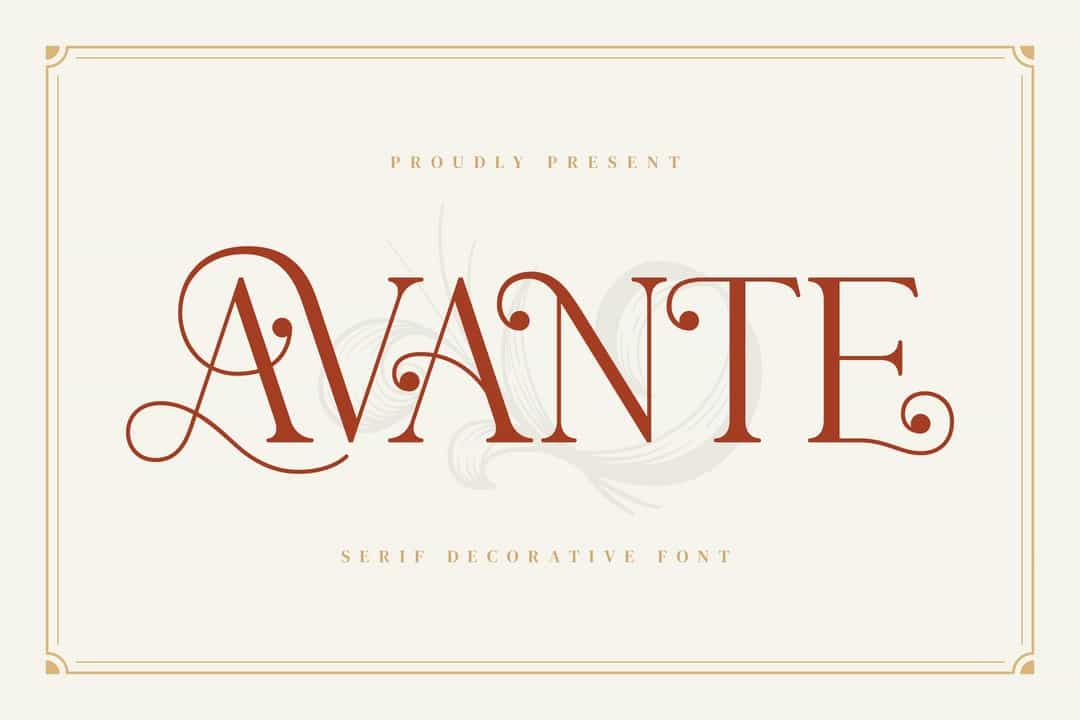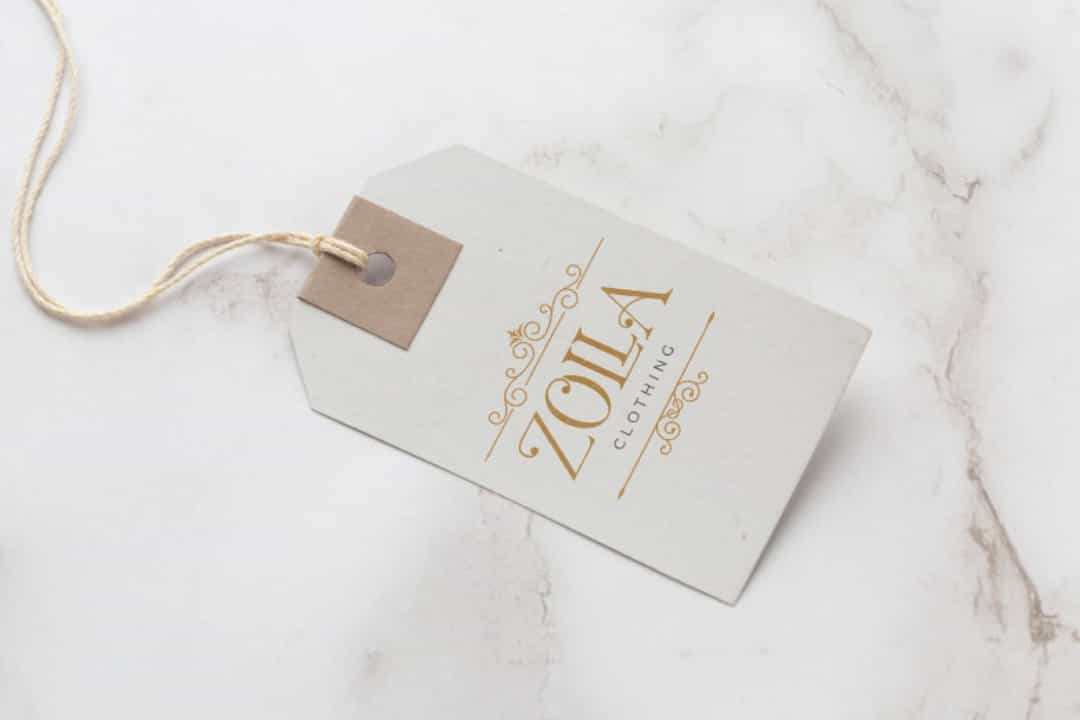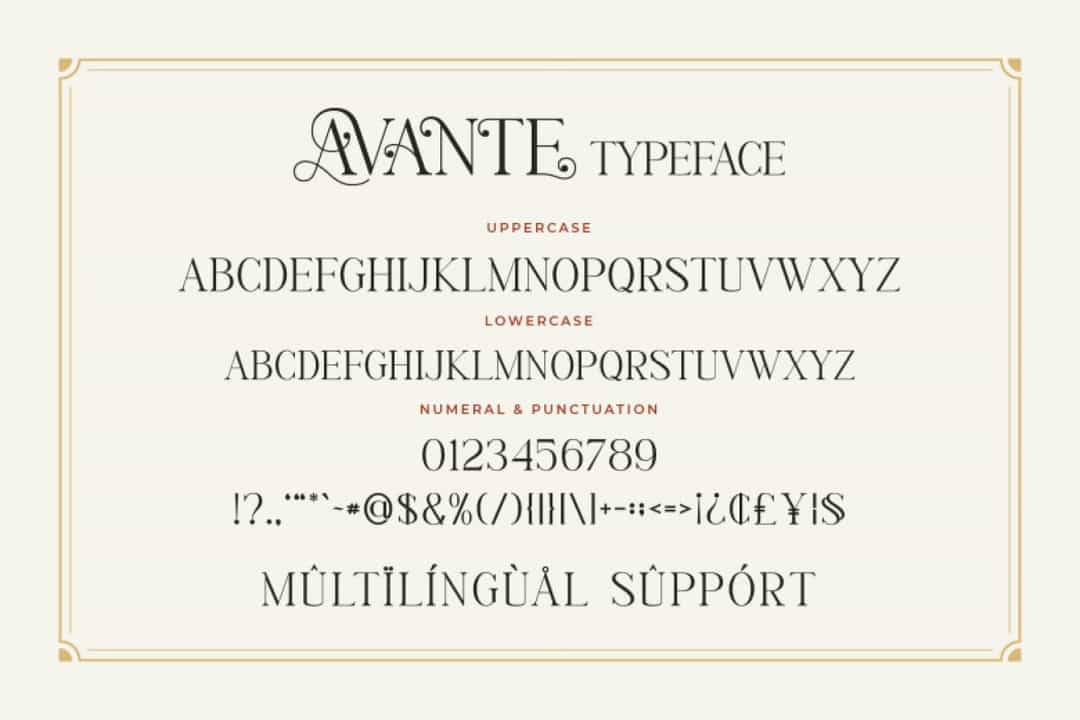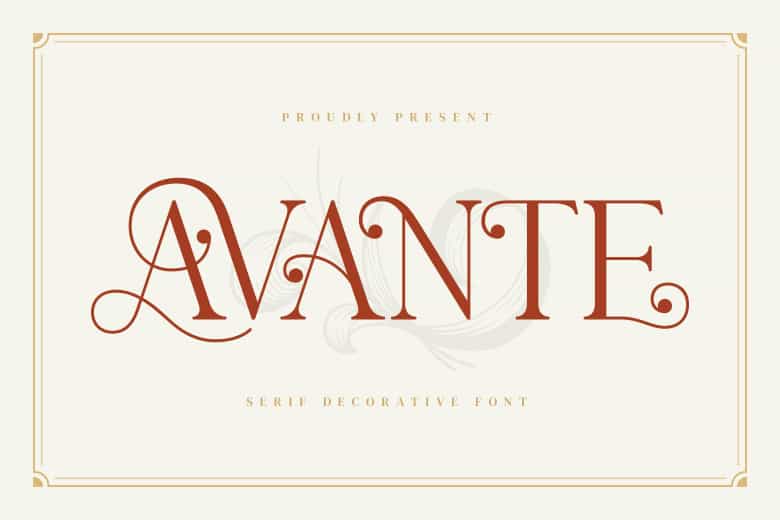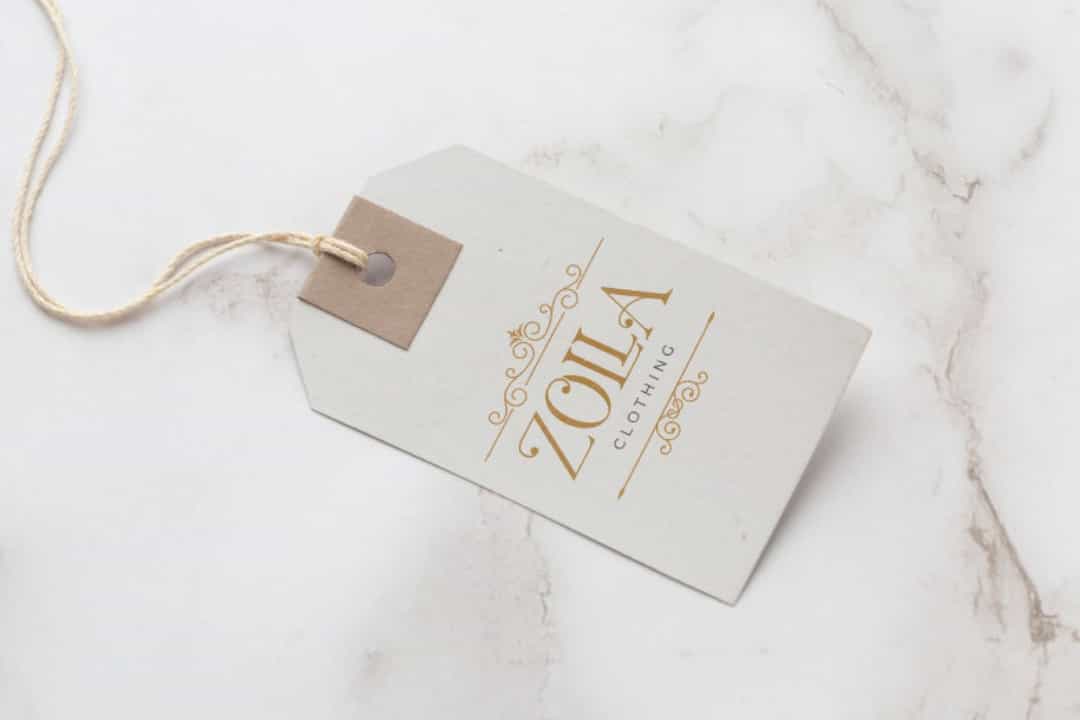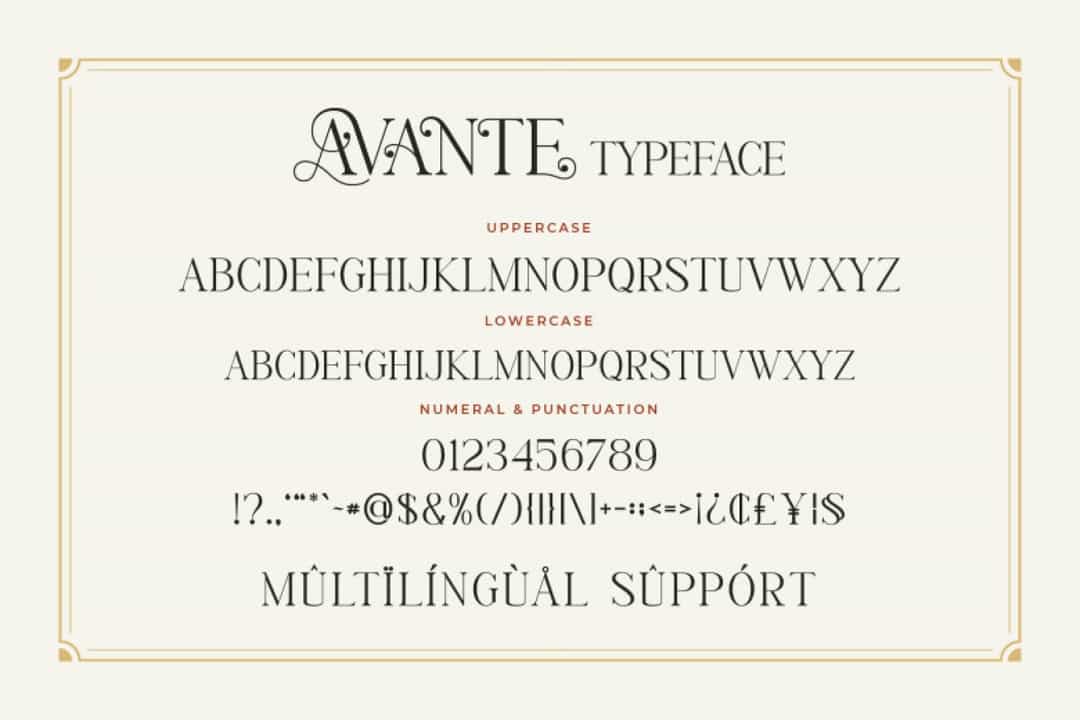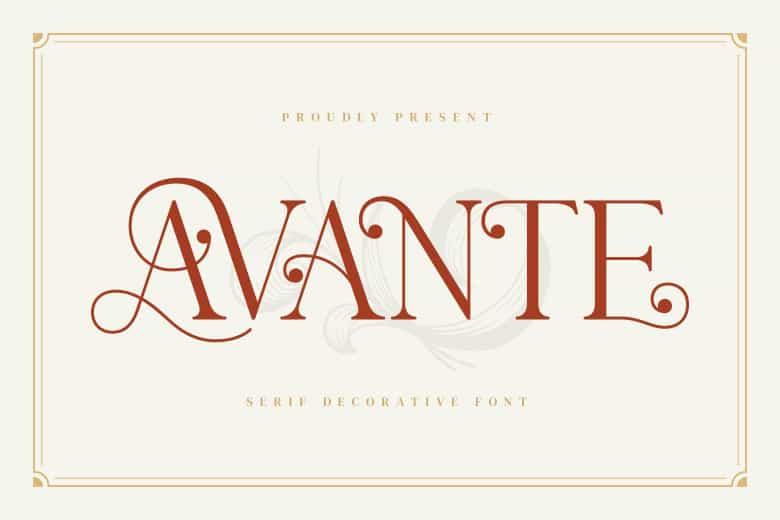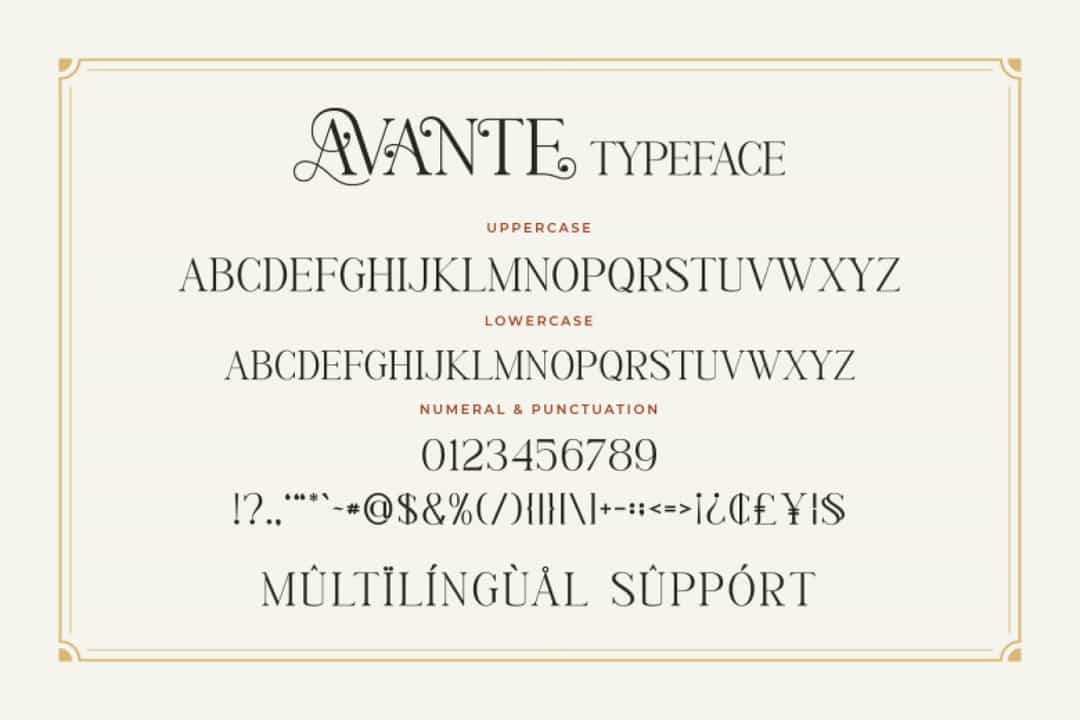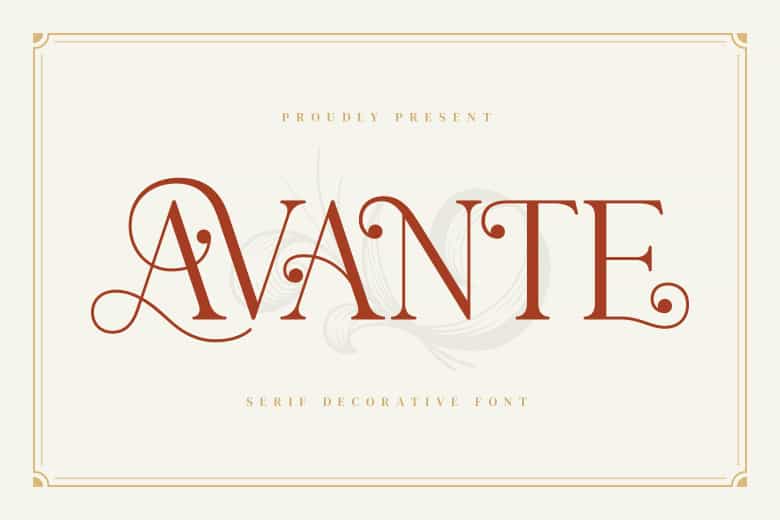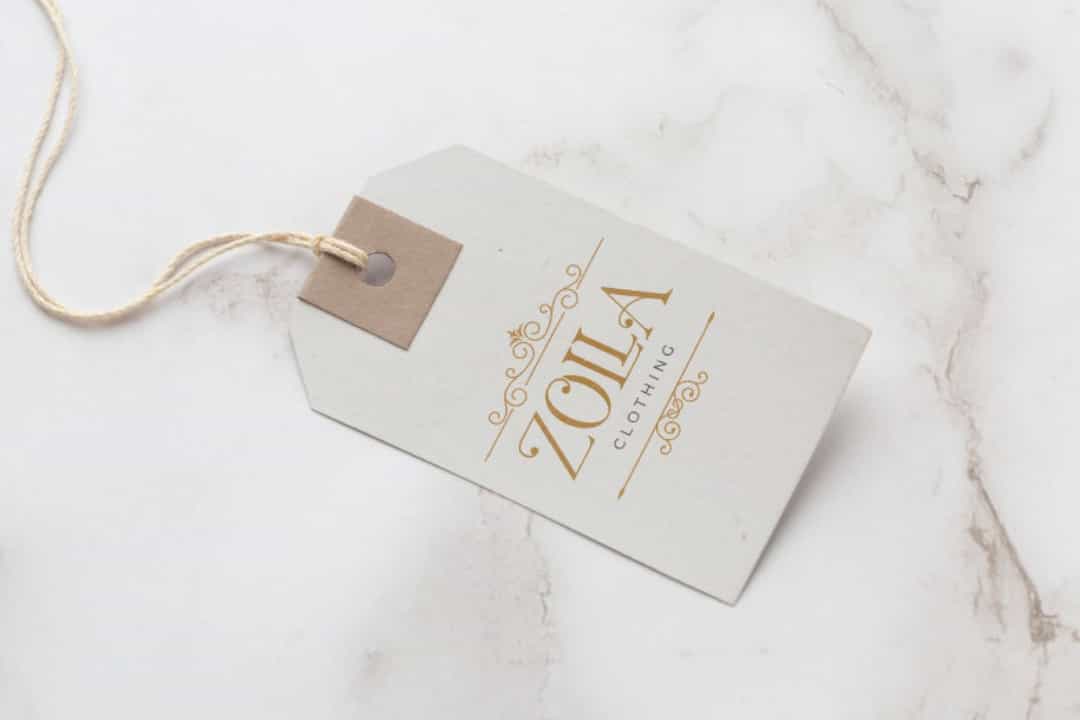
Avante is an elegant serif typeface inspired by iconic minimalism logo. Perfect for use in creating templates brochures videos brochures logos branding for advertising etc, Avante provides endless creative potential and is great to have around.